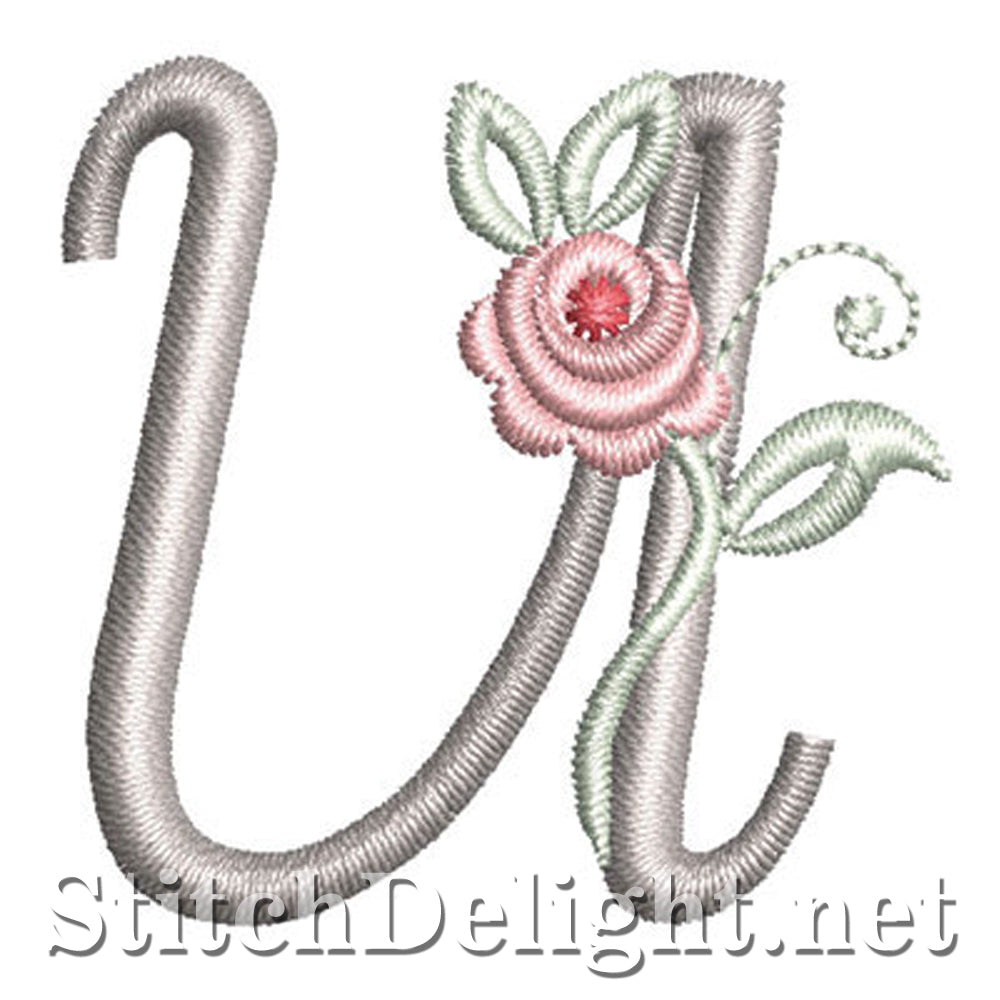
SDS1227 Antique Rose Font U
Personalize your project with this stylish monogram set with delicate rose - looks stunning stitched tone on tone. BX version for Embrilliance software - Letter height is 1.20 inch / 30mm